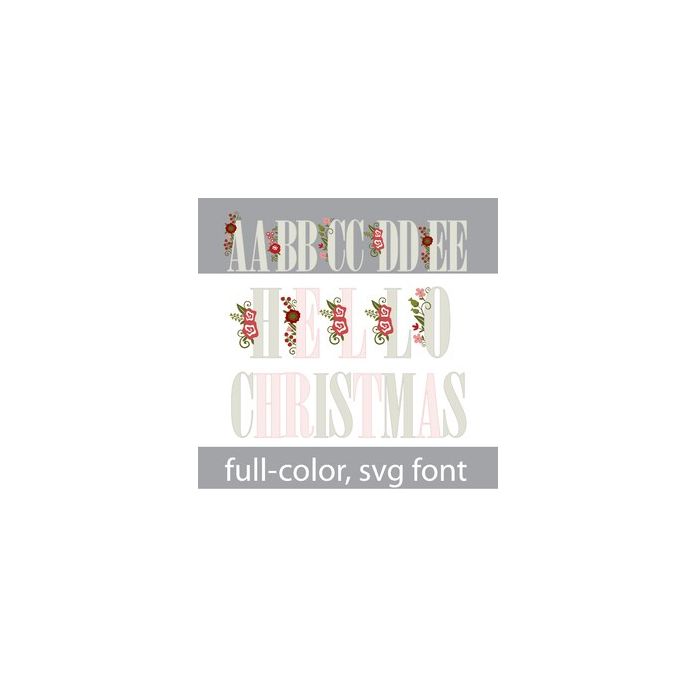
This full-color font features a formal serif letter with Christmas florals on the uppercase. There is an alt case w/ additional colors you can access through your system or Silhouette's glyph map.